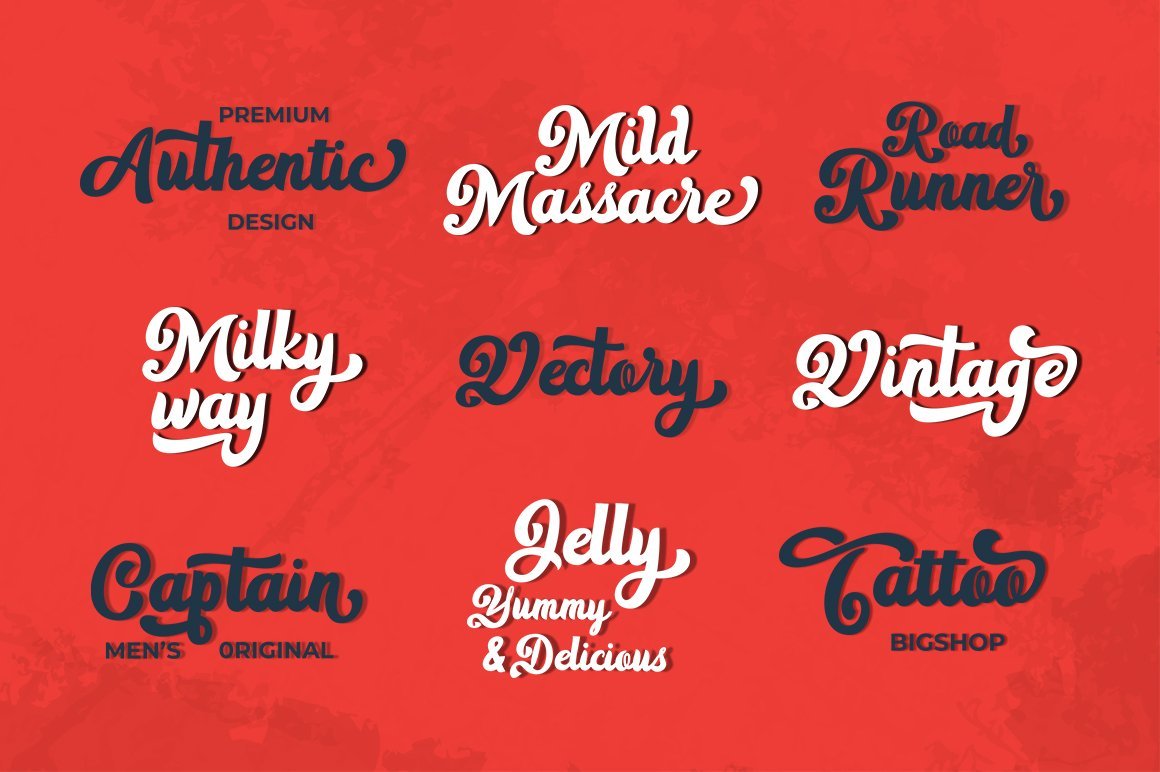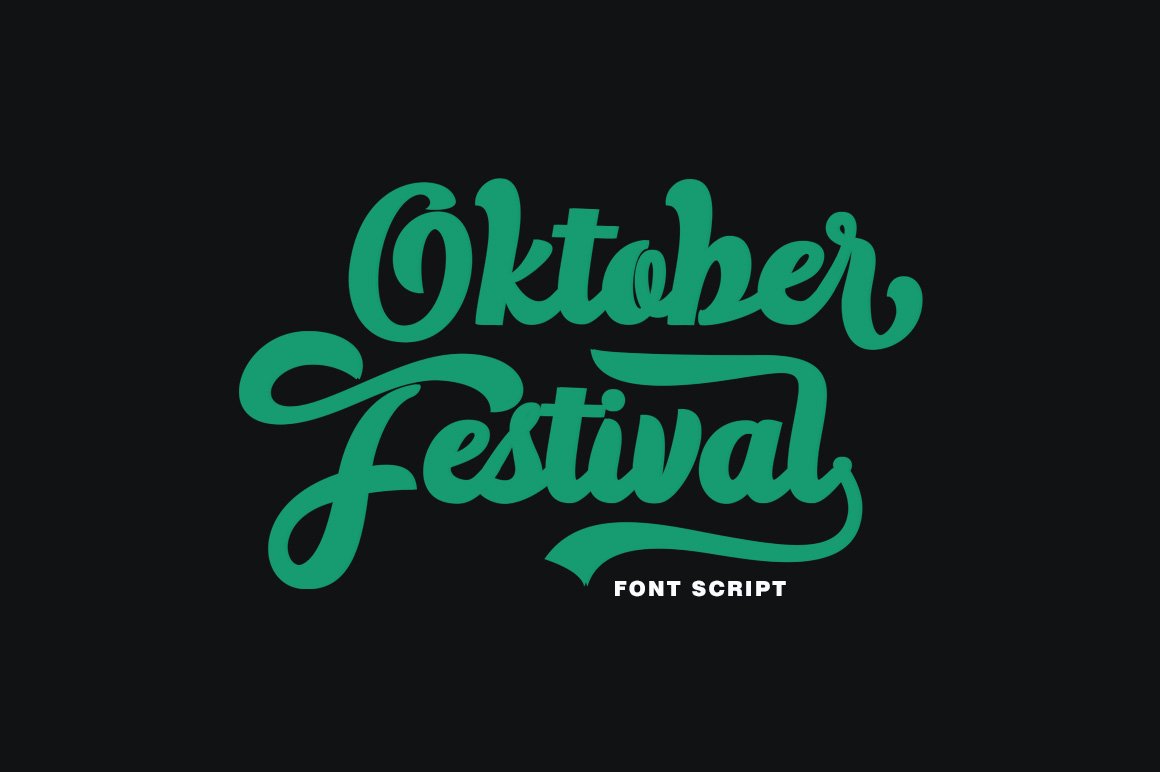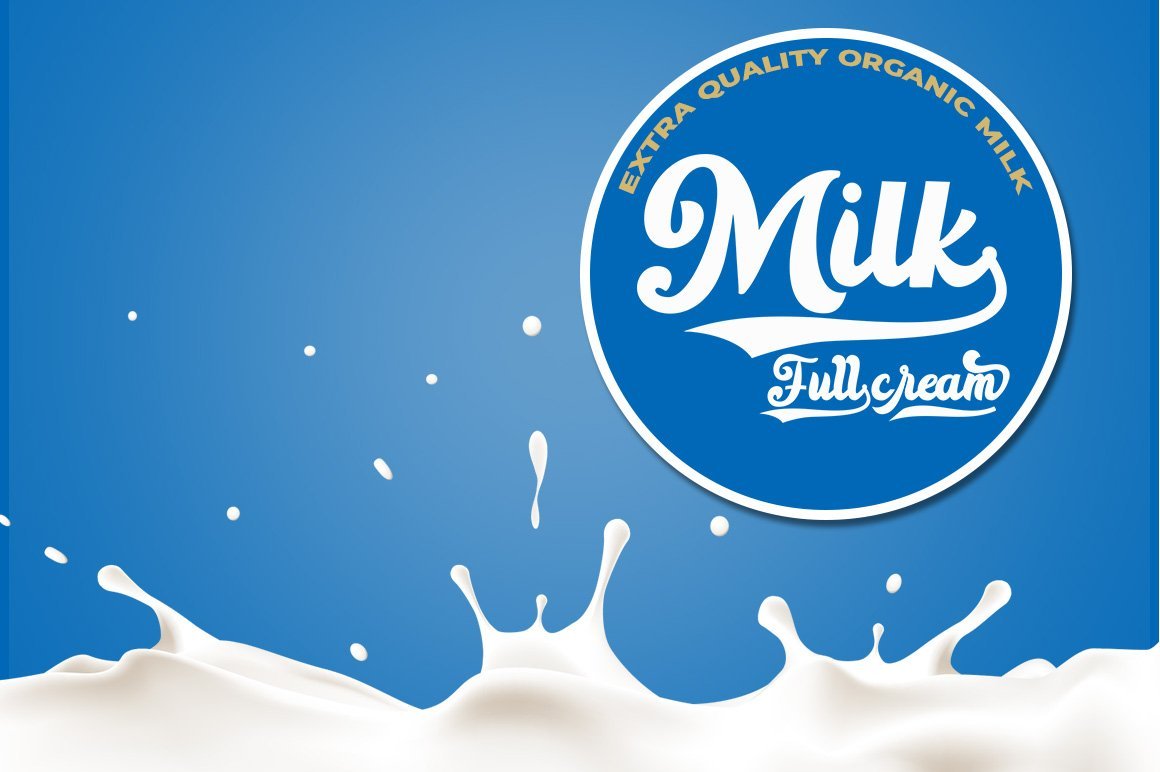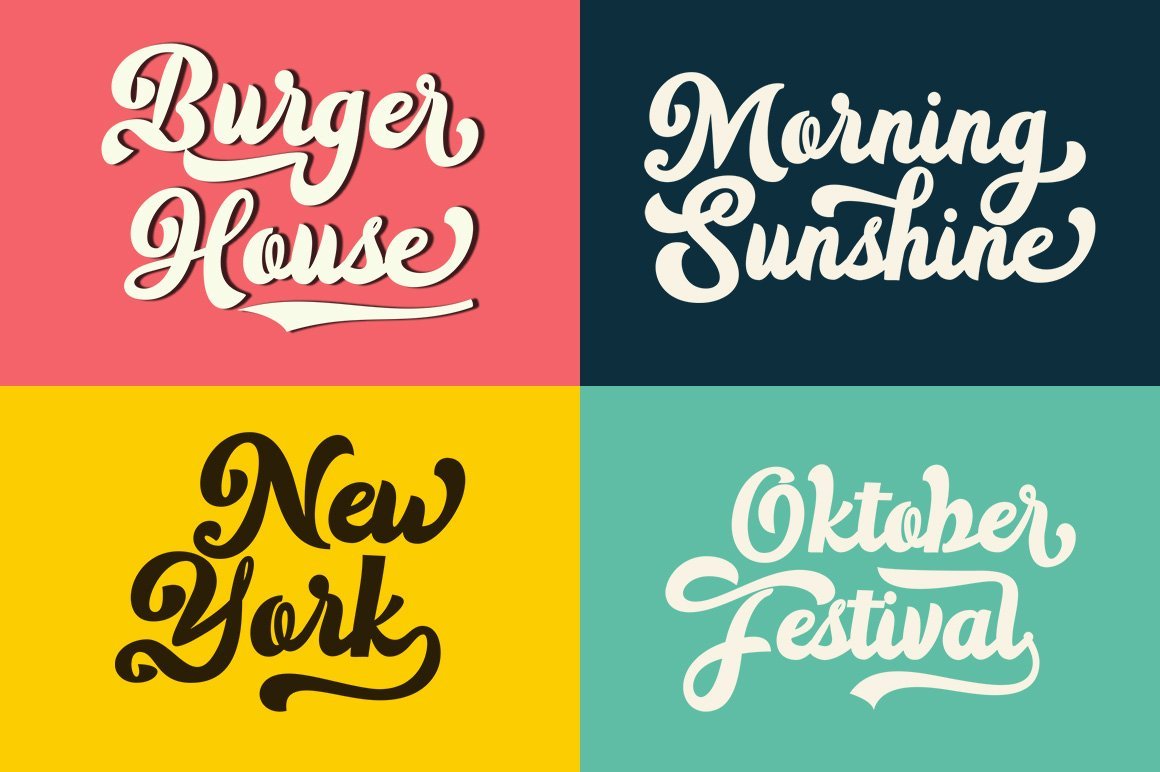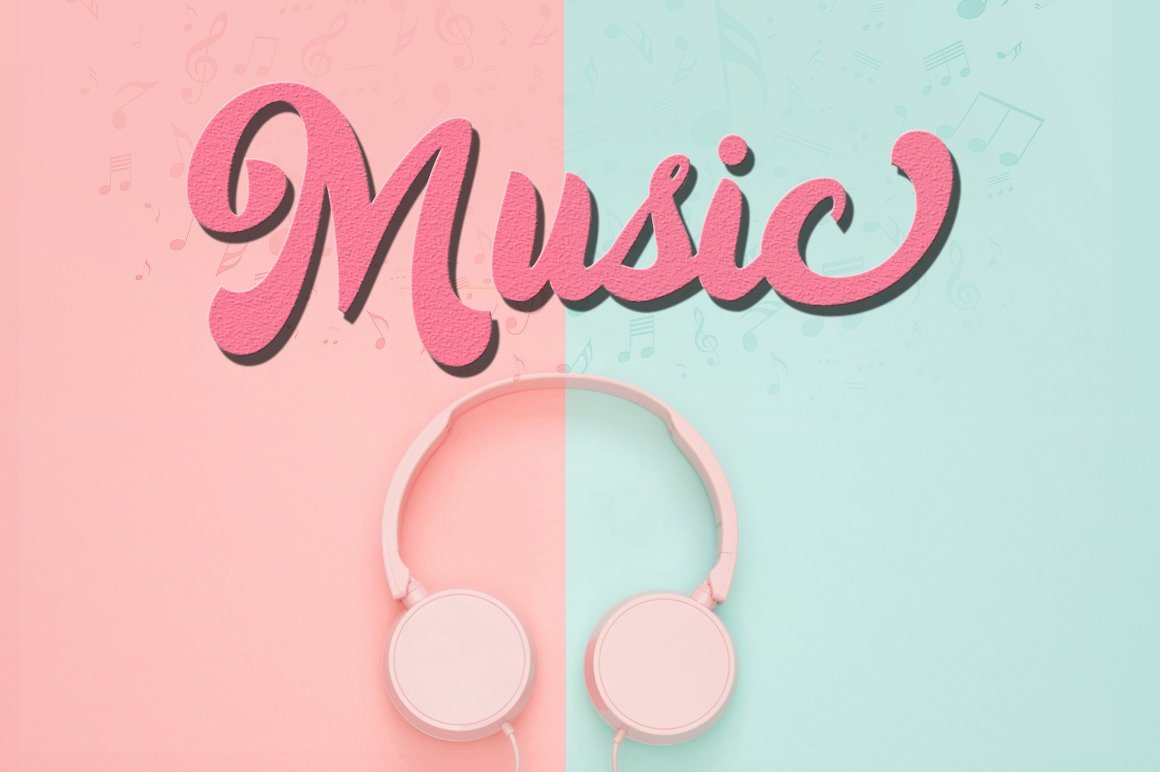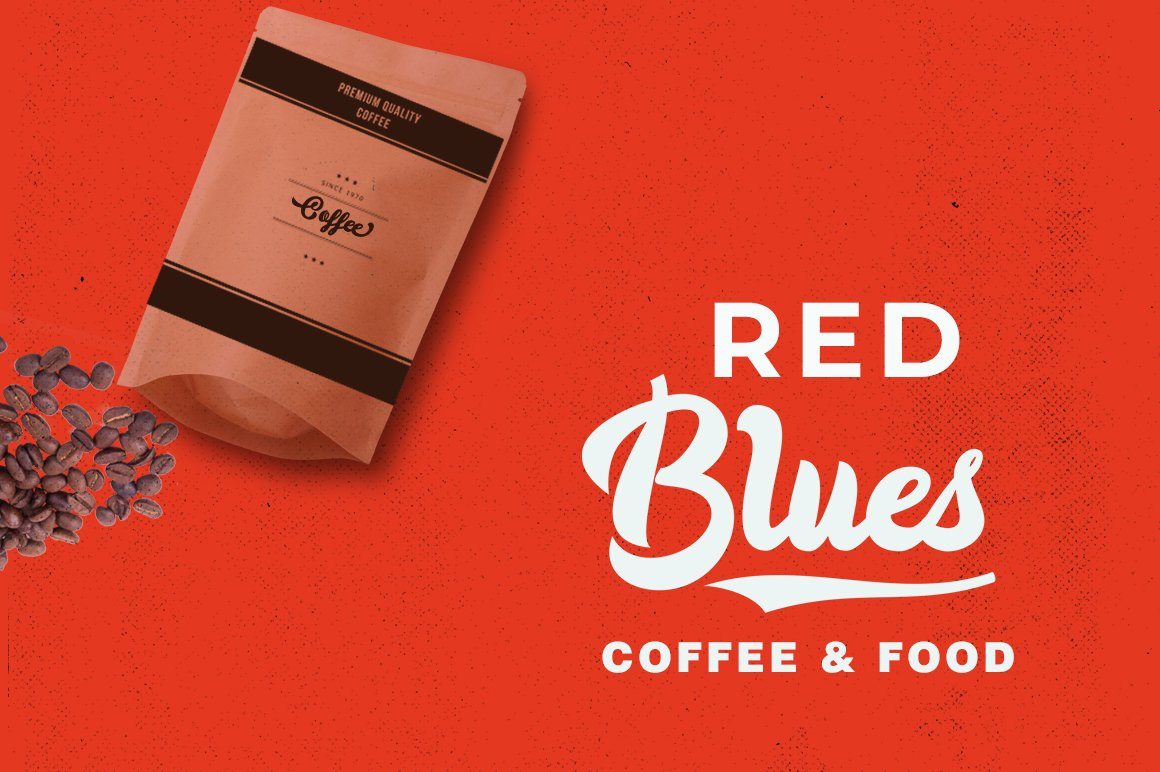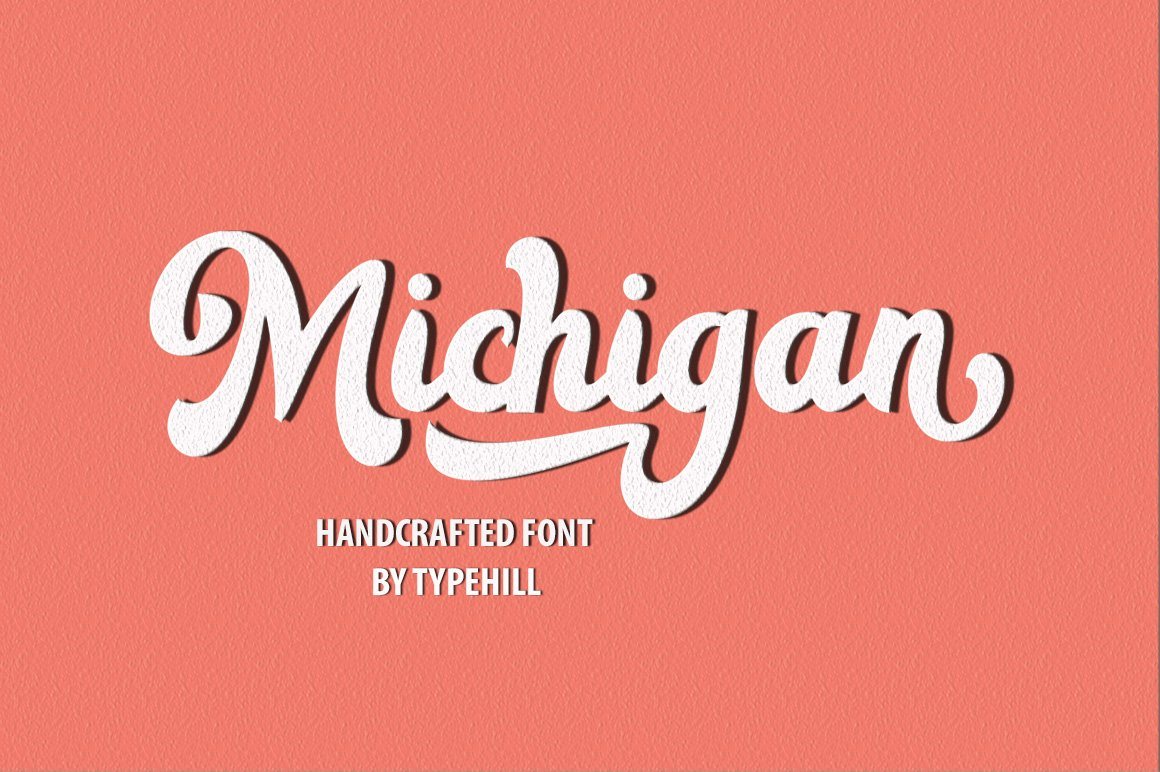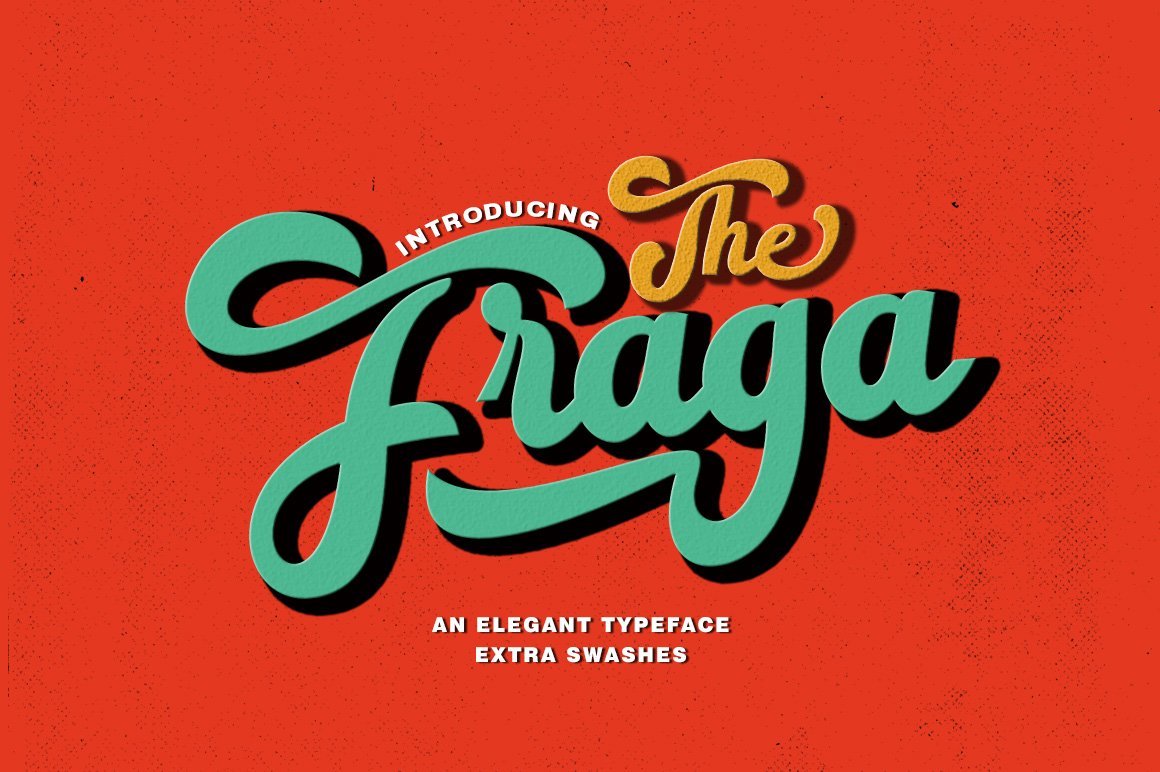
The Fraga Script
The Fraga Script Inspired by Retro style and combination with Hand Lettering style.The Fraga Script have many alternative swash & ligatures character and have opentype features like a stylistic alternatice, stylistic set, ligature and swash so you can mix and match like a you want. The Fraga Script came with open type features such stylistic alternates, stylistic sets & ligatures good for logotype, poster, badge, book cover, tshirt design,handwritten quotes, product packaging, header, poster, merchandise, social media & greeting cards.